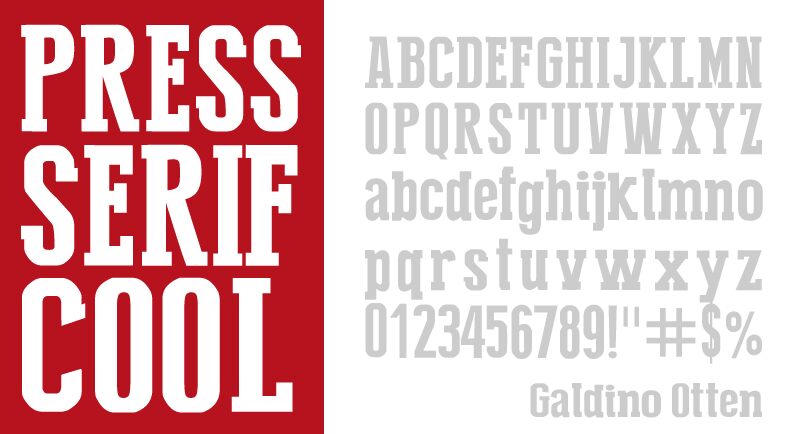
Press Serif Cool by Galdino Otten is a free retro display serif with the compressed force of old tabloid newspaper and printed playbill type. Towering narrow capitals have broad slab endings and abrupt thick-thin changes, set against rounder lowercase forms, uneven widths, and a deliberately crowded cadence.
The vintage press-room character is strongest on concert posters. Album packaging, magazine covers, and club merchandise gain a loud cut-and-paste flavor from the mixed proportions and tightly packed shapes. For independent record labels, the lettering can become the centerpiece of a recognizable product identity, echoing hand-set display type rather than neutral commercial copy.